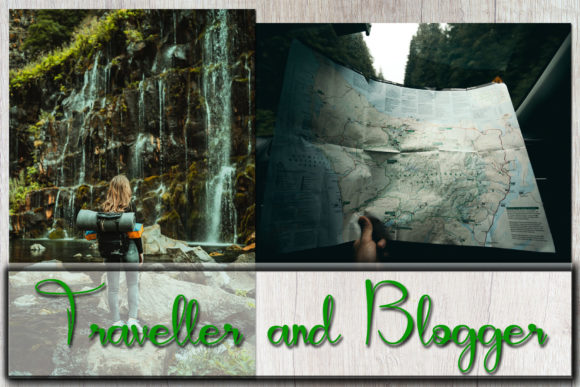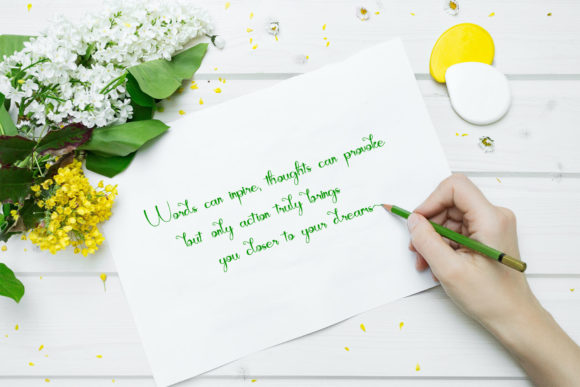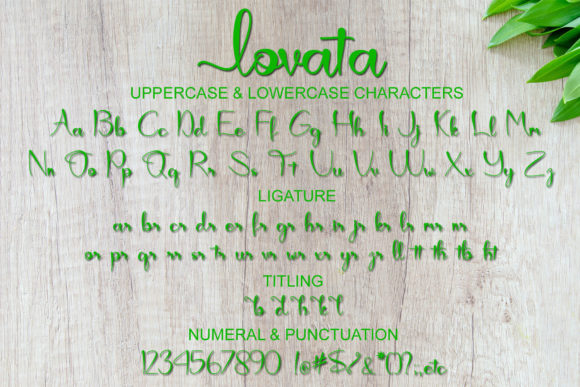
Introduction to Lovata Font Font
Fonts play a crucial role in design, and the Lovata Font font is a typeface that brings both character and versatility to any project. Whether you’re working on a branding project, a website, or a print design, the Lovata Font font offers a unique style that can elevate your work.
Lovata is a modern, elegant, sophisticated and classy calligraphy font that will add a luxury spark to any design project.
Key Features of Lovata Font Font
Why Choose Lovata Font Font?
The Lovata Font font is more than just a typeface – it’s a design tool that helps you communicate your message with style and clarity. Its unique character set and versatile design make it suitable for a wide range of applications, from elegant invitations to bold headlines.
With its carefully crafted letterforms and balanced proportions, the Lovata Font font ensures readability and visual appeal across all mediums.
What makes Lovata Font font special?
The Lovata Font font stands out with its unique design, exceptional readability, and versatility across various design applications.